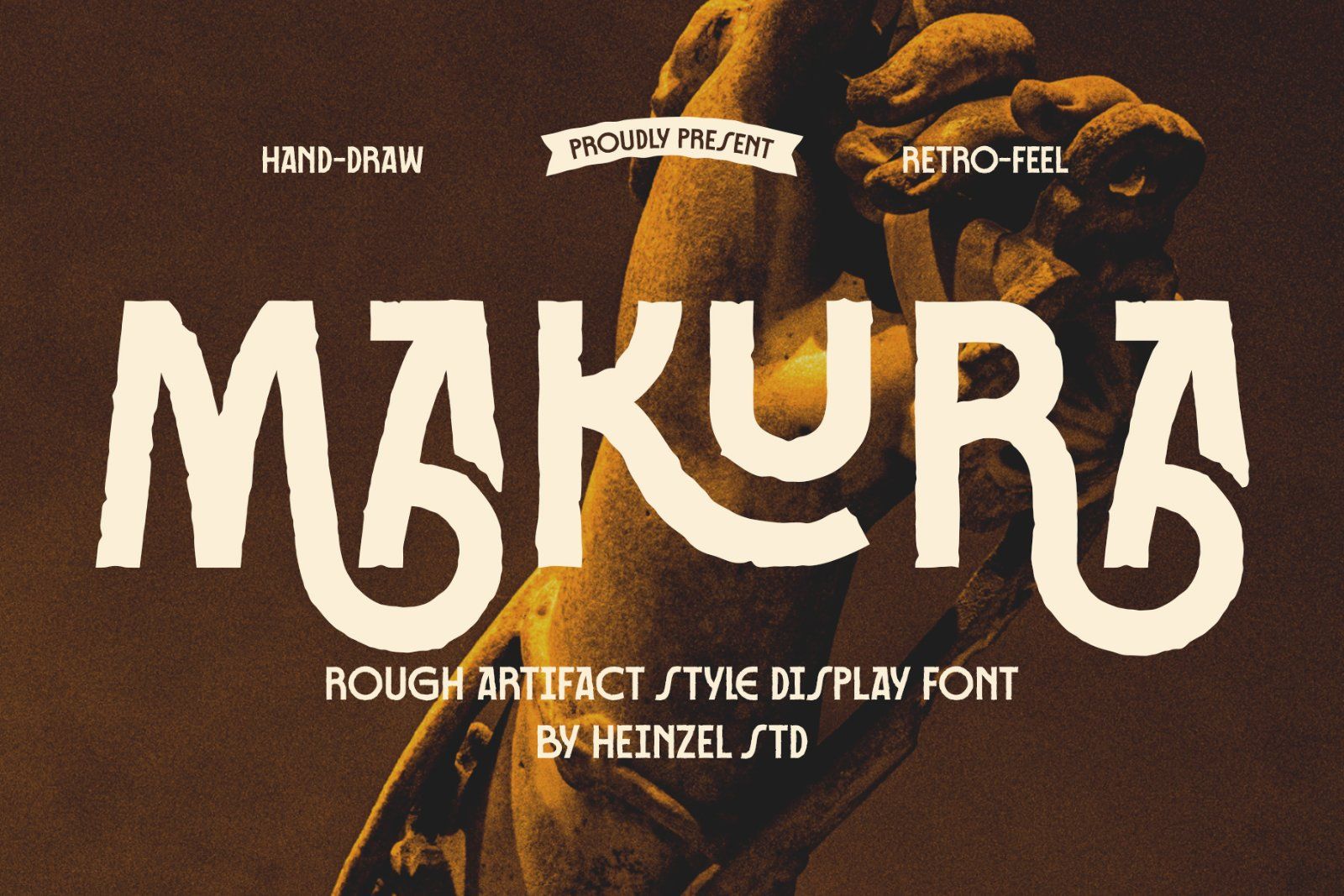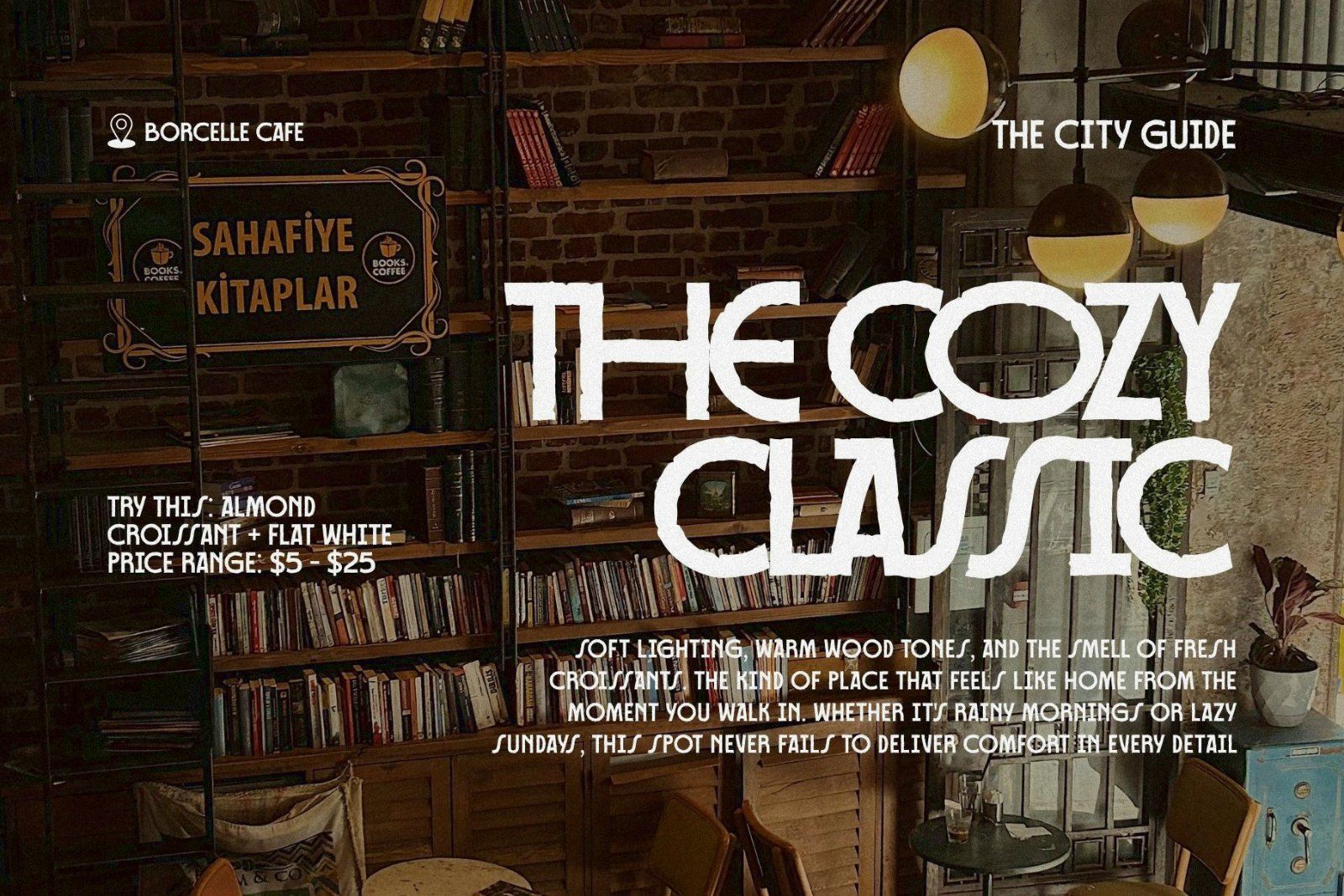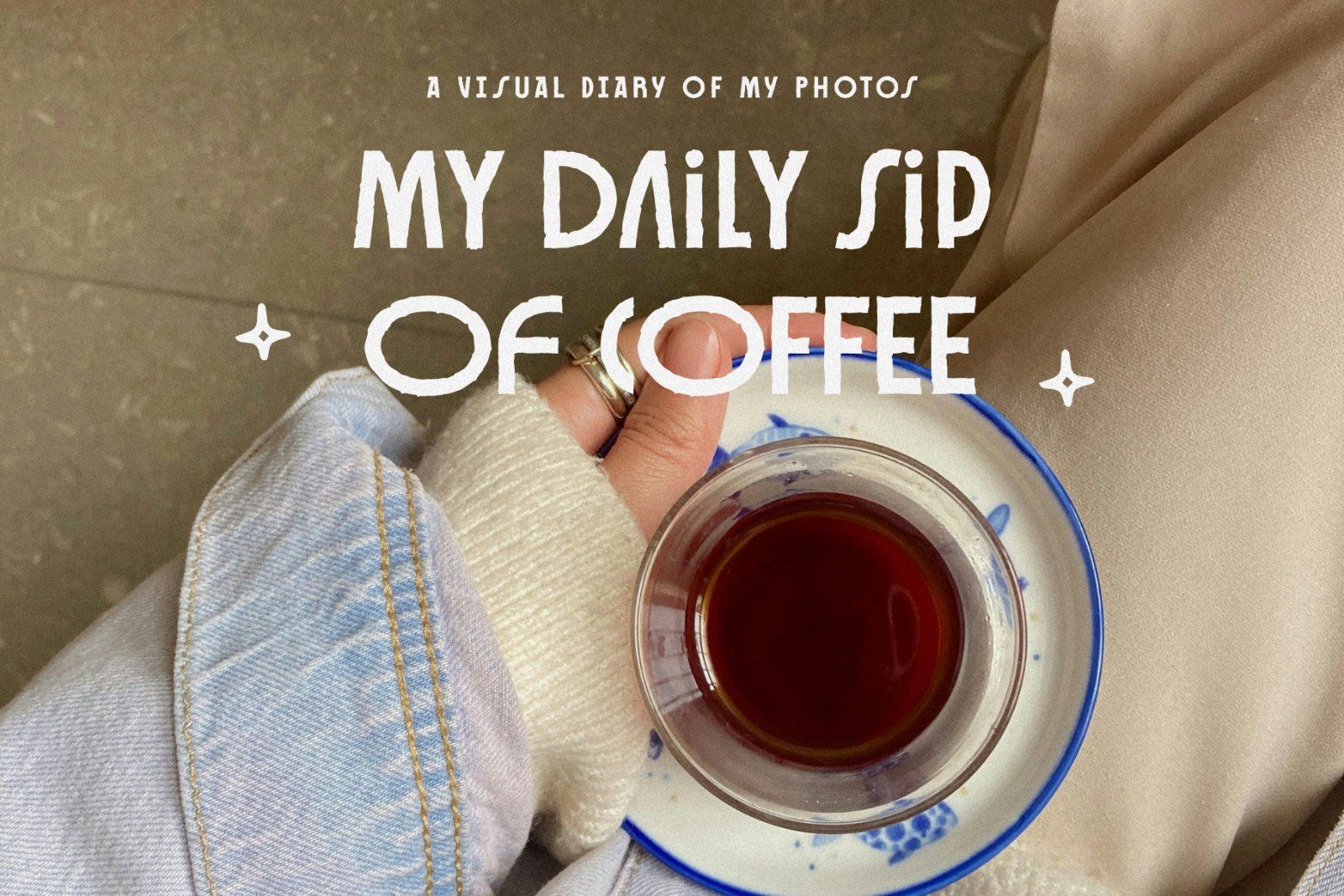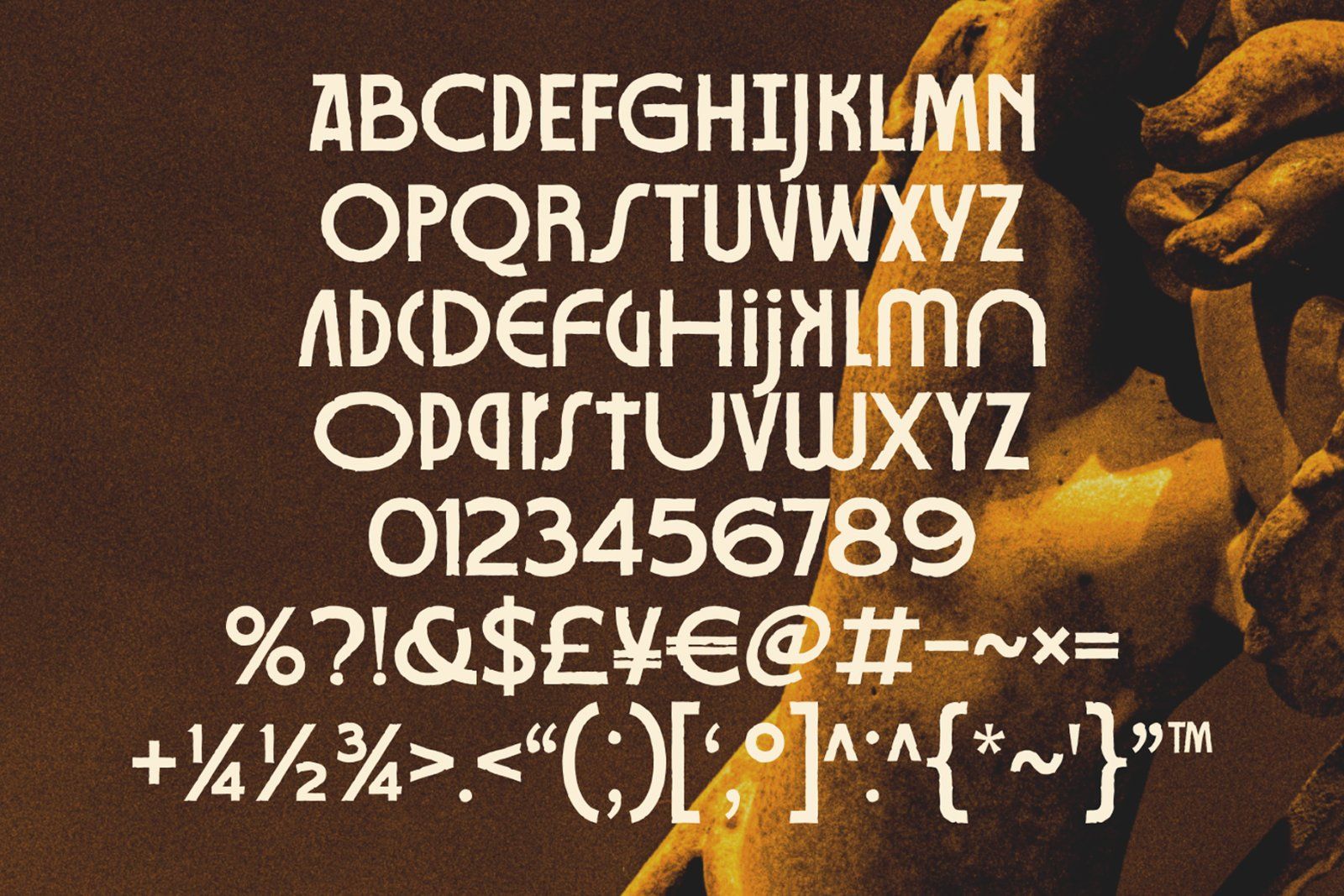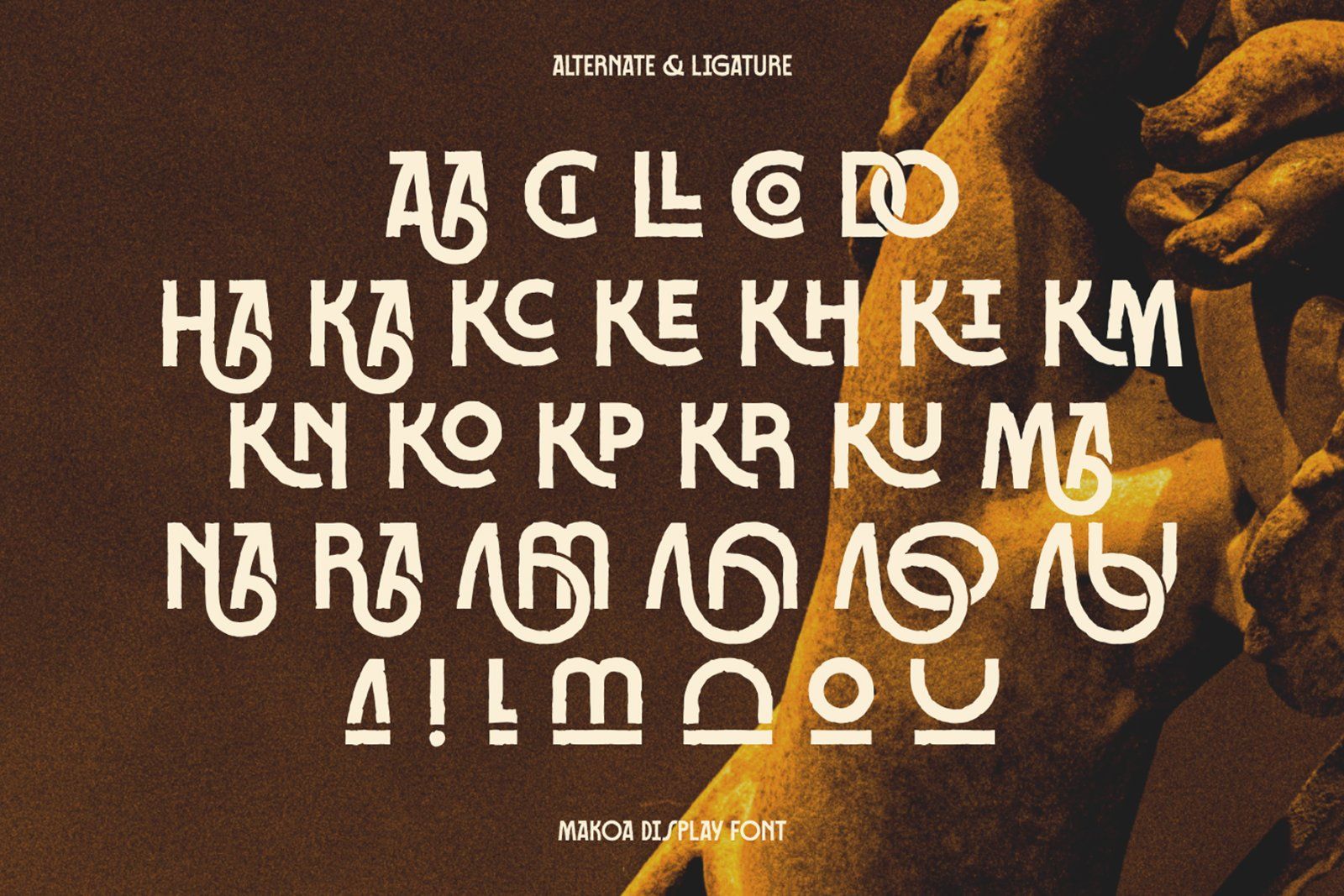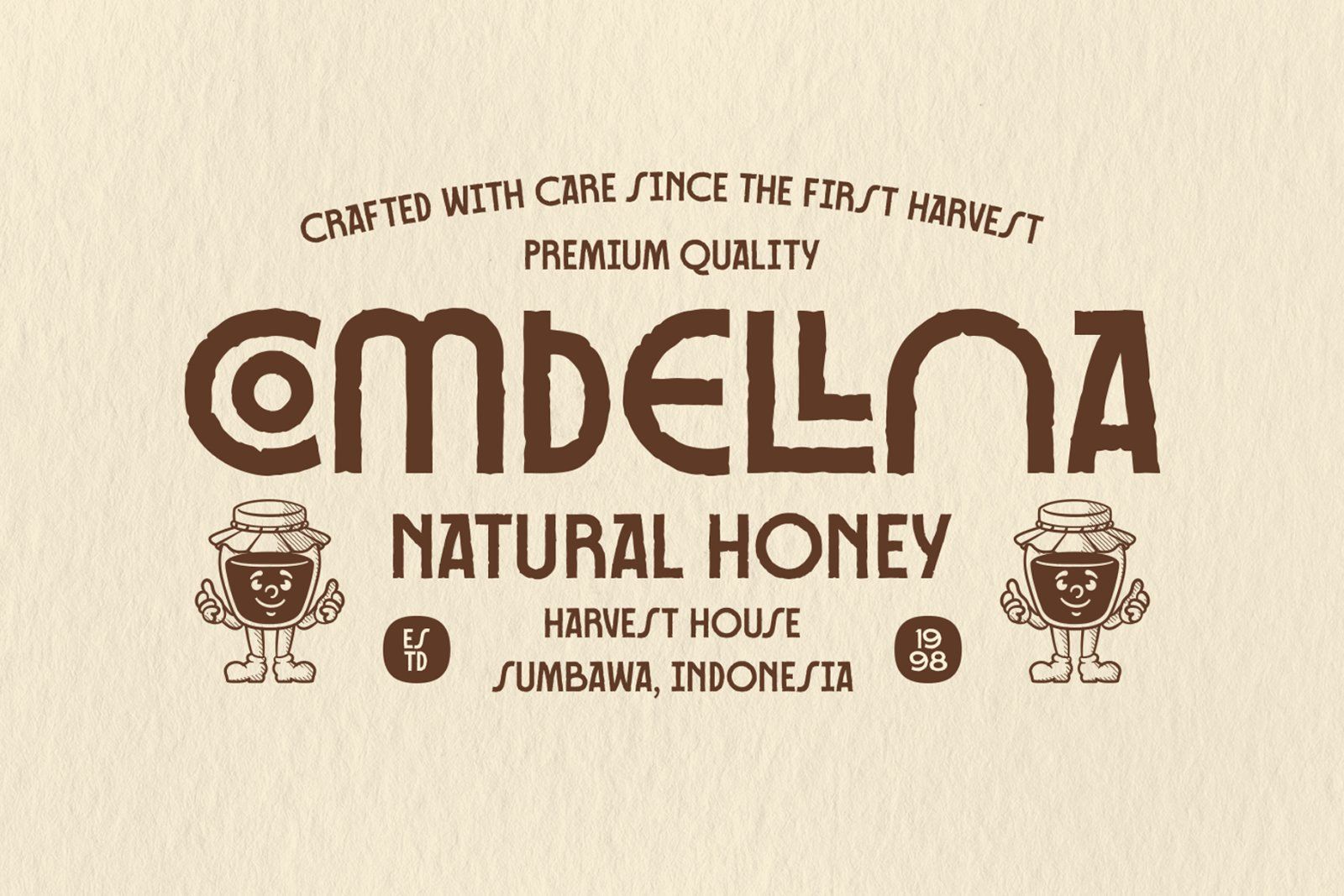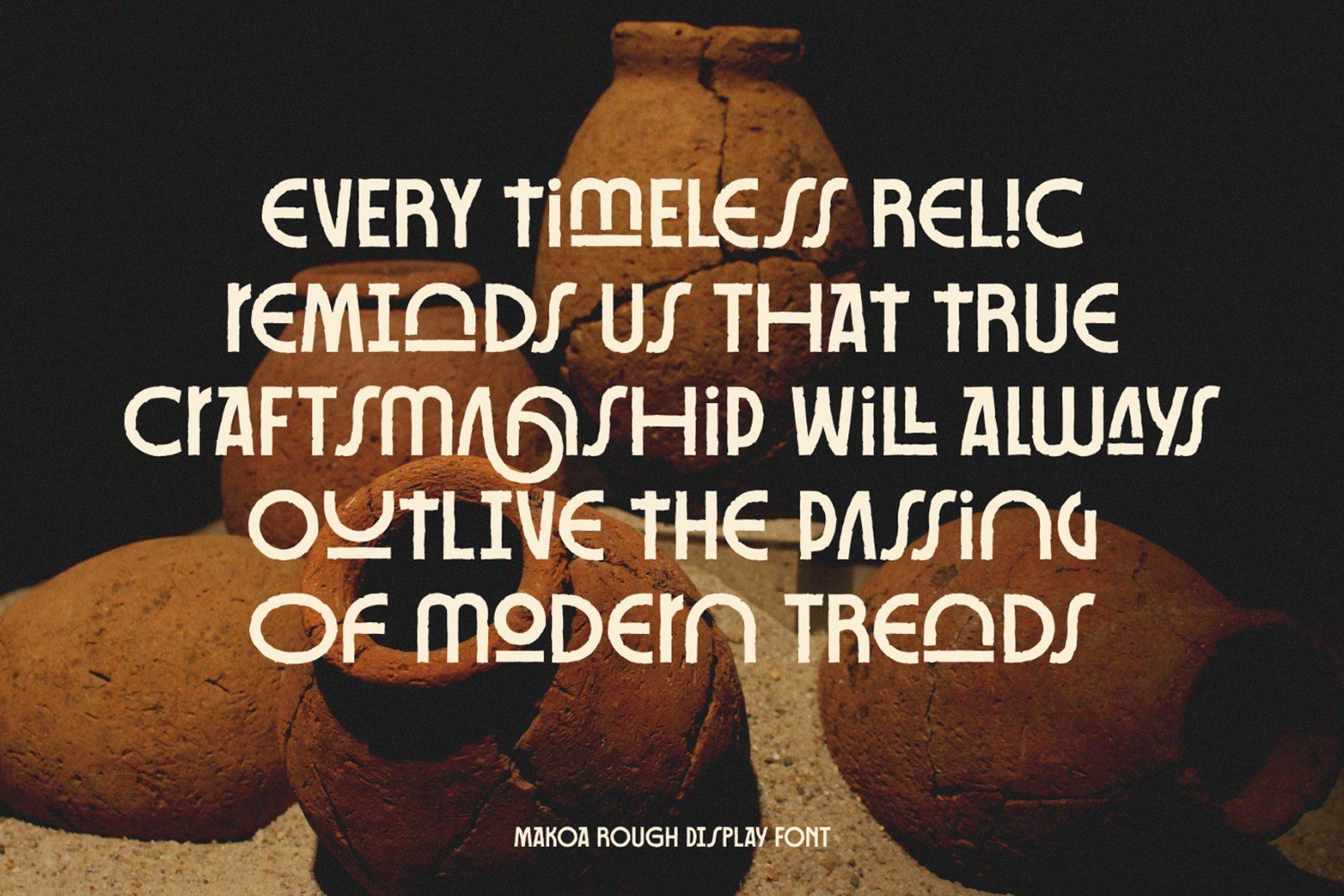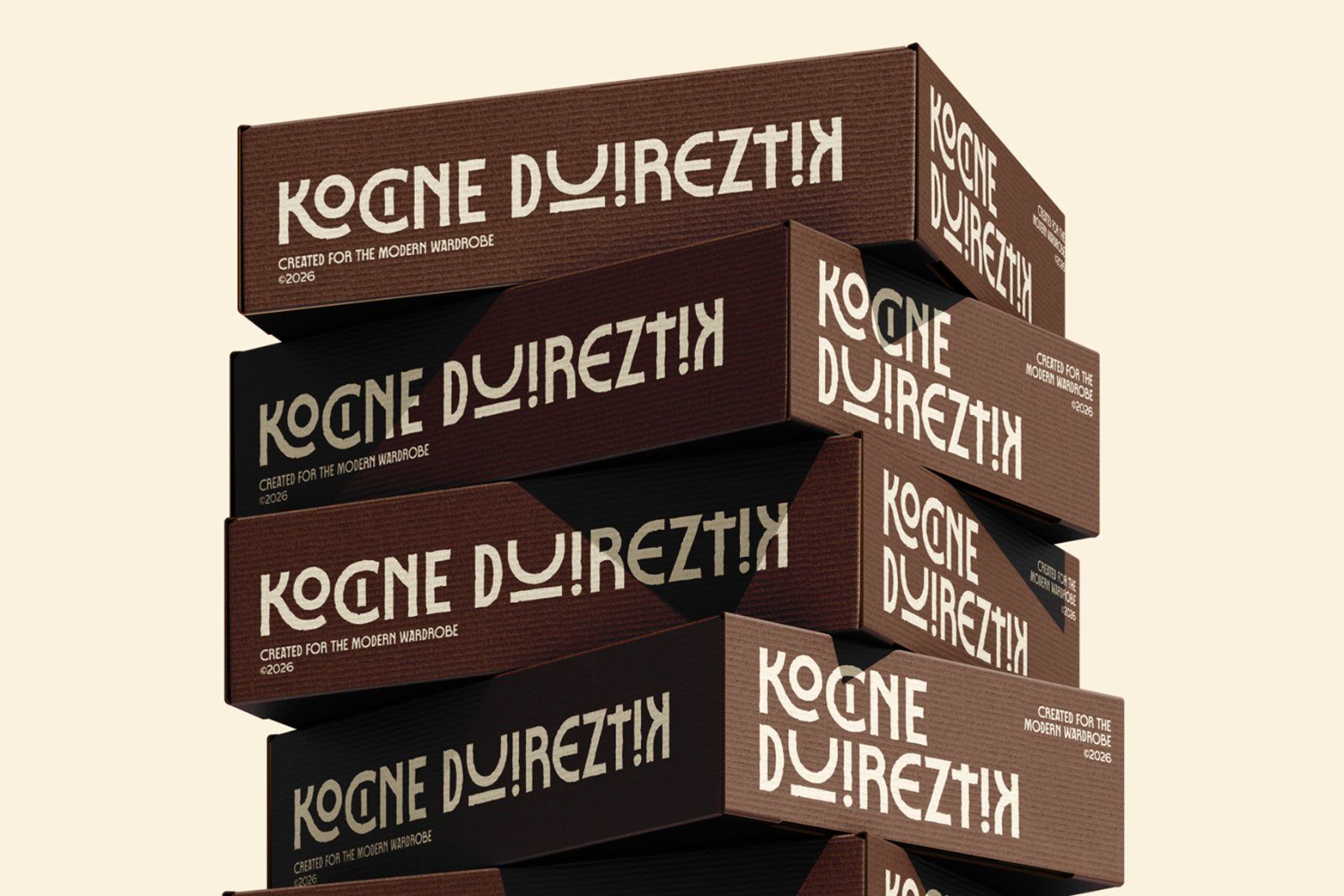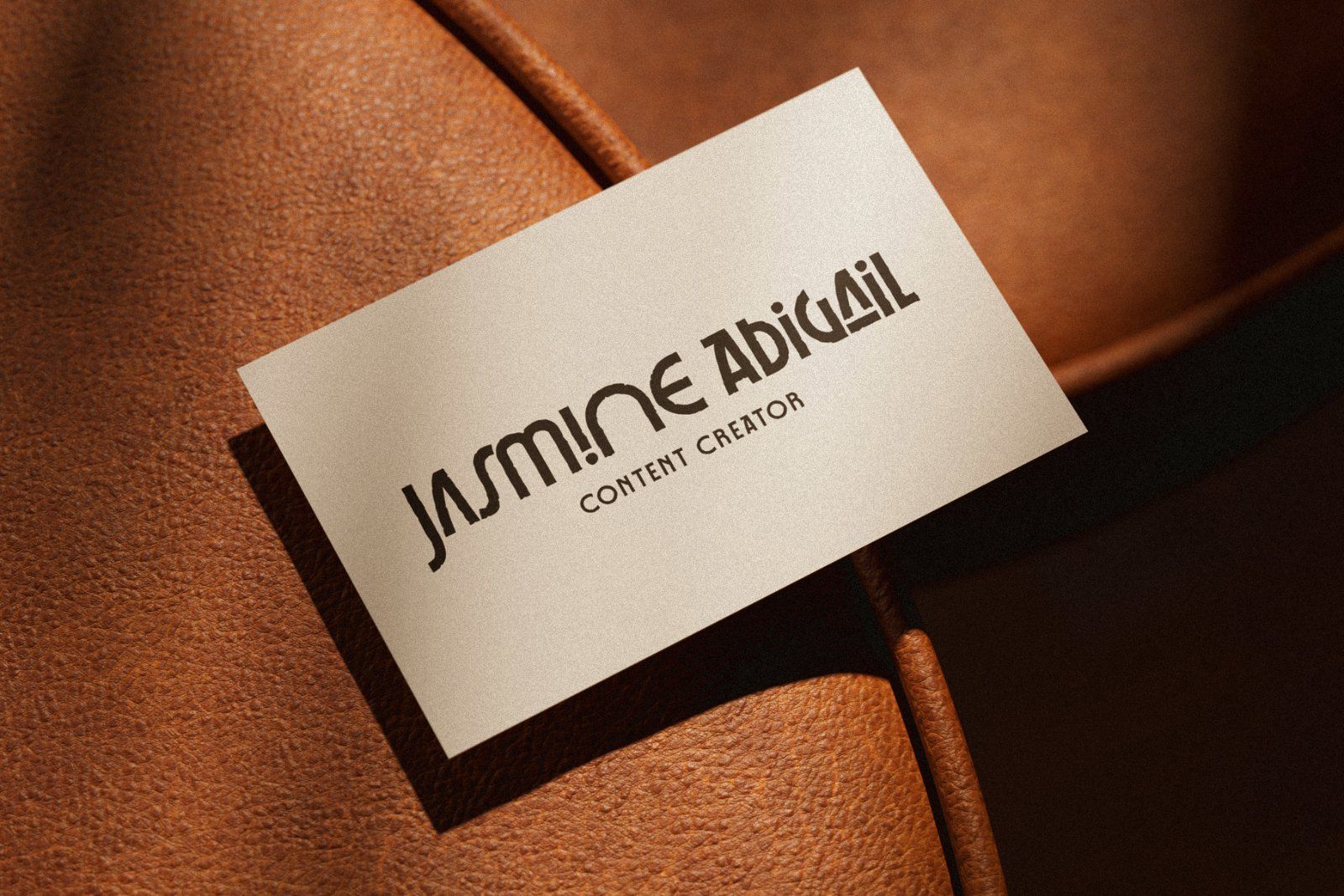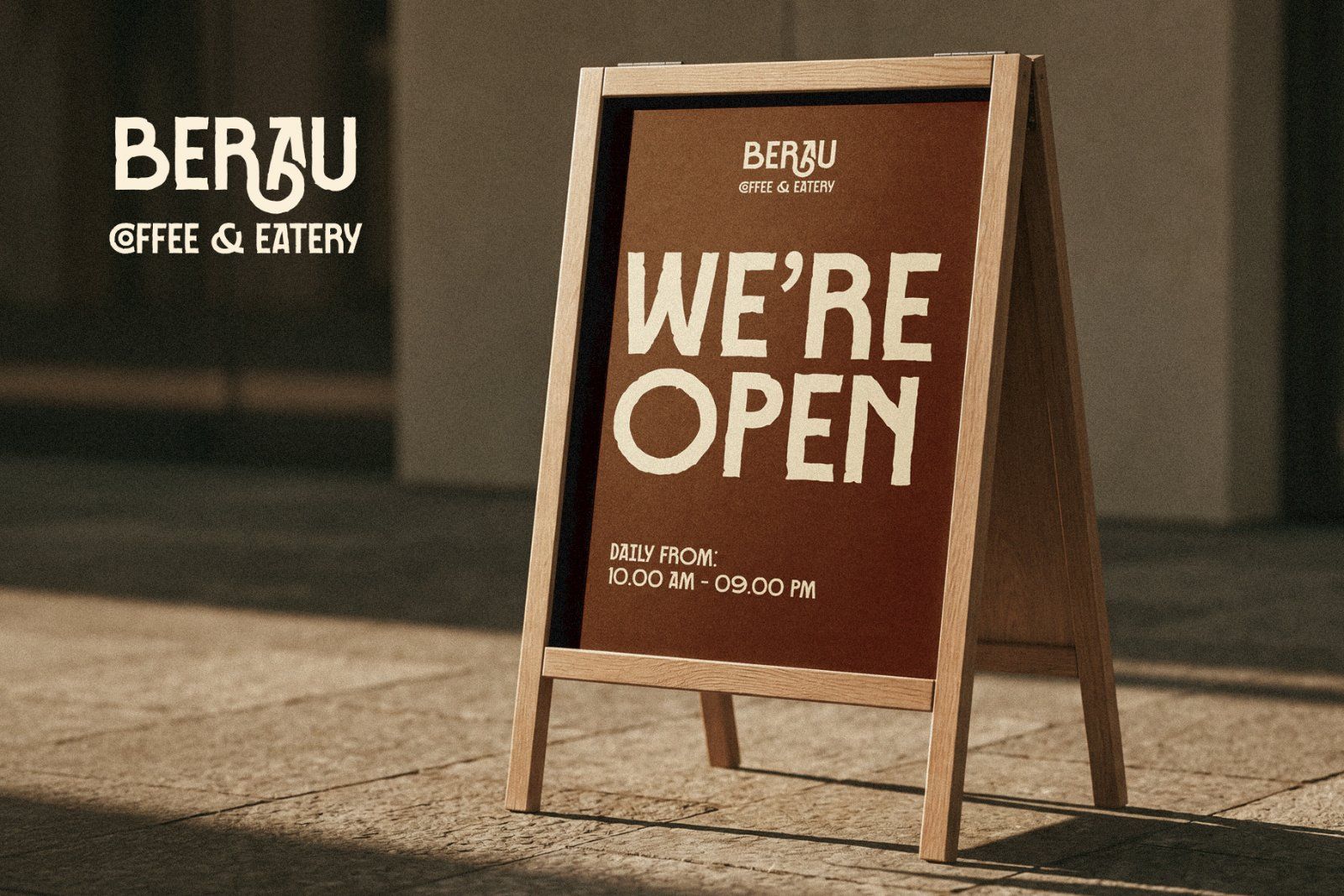
Makura is a bold rough artifact display font inspired by hand-drawn lettering, vintage print textures, and imperfect craftsmanship. Designed with rugged edges and an organic silhouette, Makura delivers an authentic retro feel that stands out in posters, branding, album covers, apparel, packaging, logos, book covers, and editorial headlines.
Every letter is carefully crafted with irregular details that recreate the look of handmade typography, making your designs feel raw, expressive, and full of character. Whether you're creating vintage branding, rustic packaging, horror themes, outdoor adventure graphics, or artistic merchandise, Makura instantly adds personality and visual impact.
Its bold shapes maintain excellent readability while preserving an authentic handcrafted appearance. Makura works beautifully for large headlines, display typography, social media graphics, café branding, craft products, music posters, whiskey labels, camping themes, and creative projects that demand a distinctive vintage aesthetic.